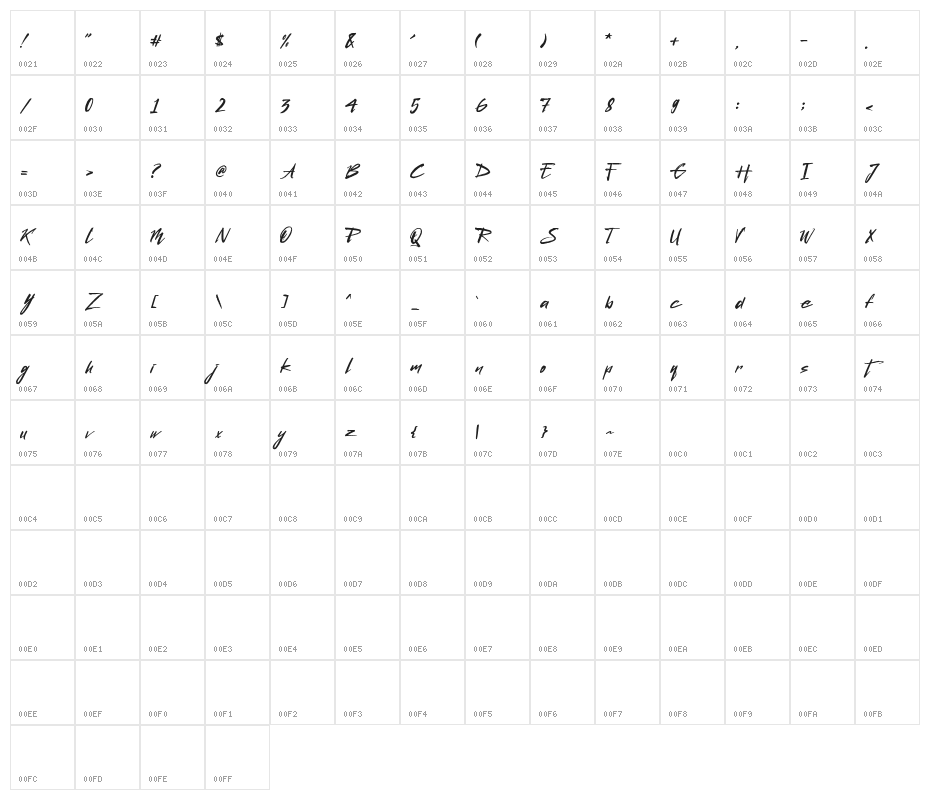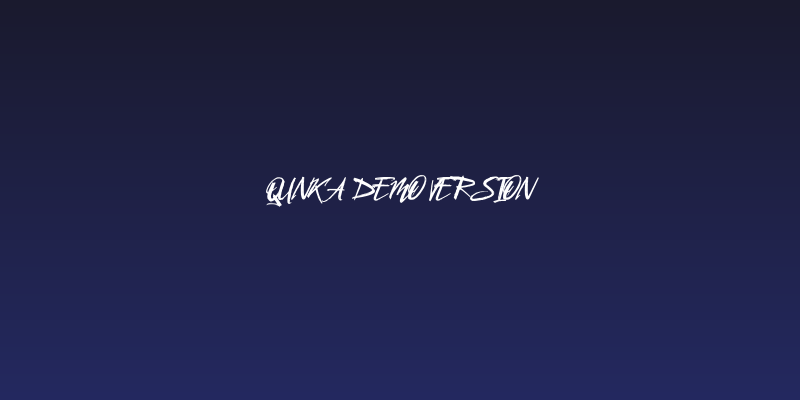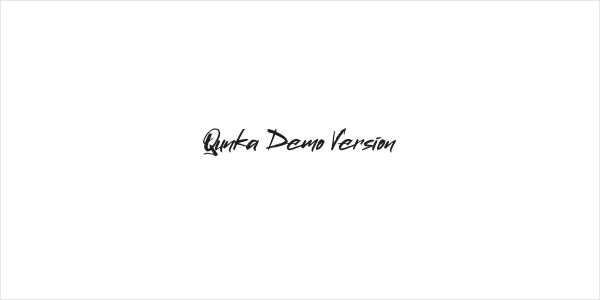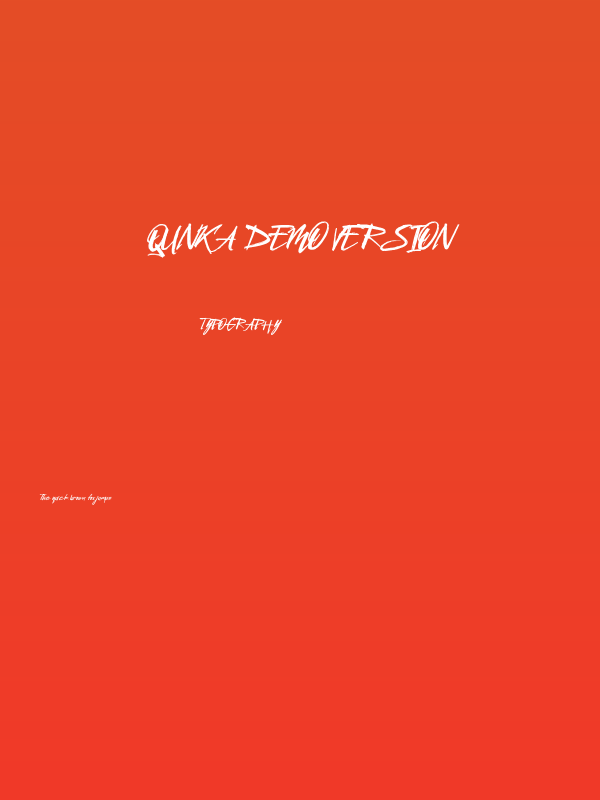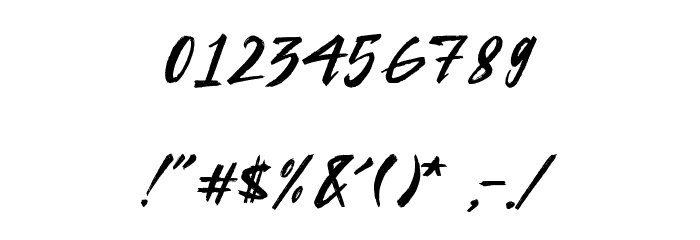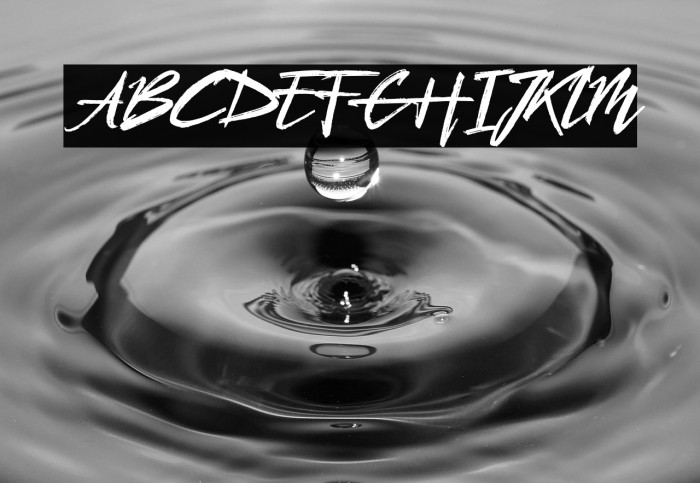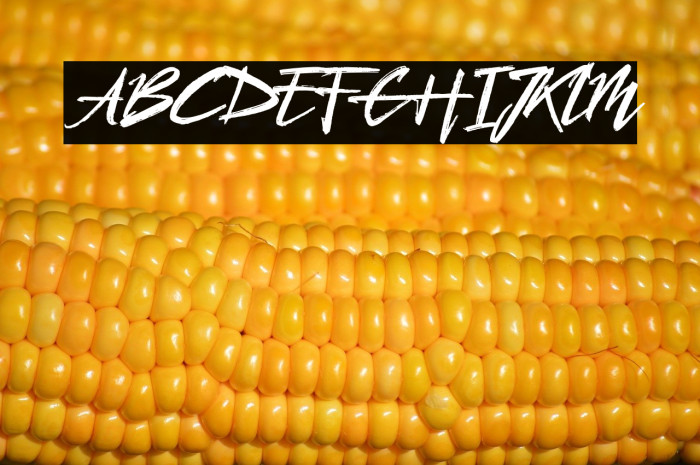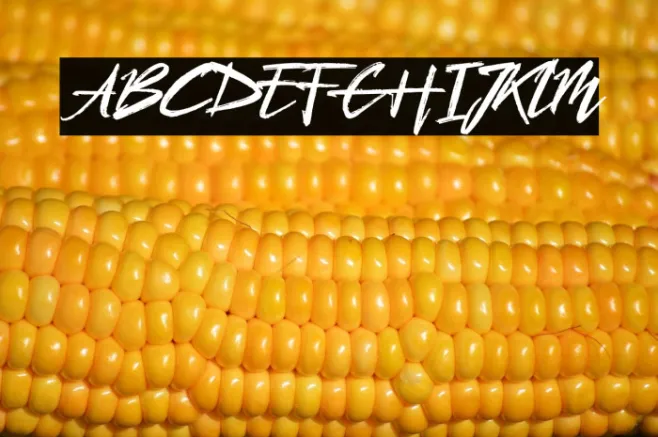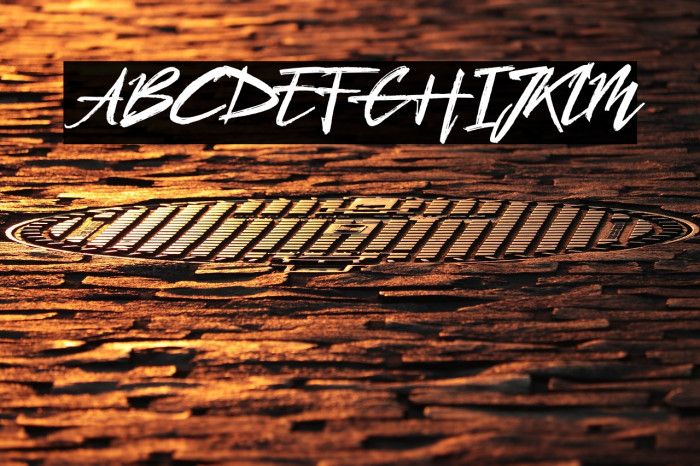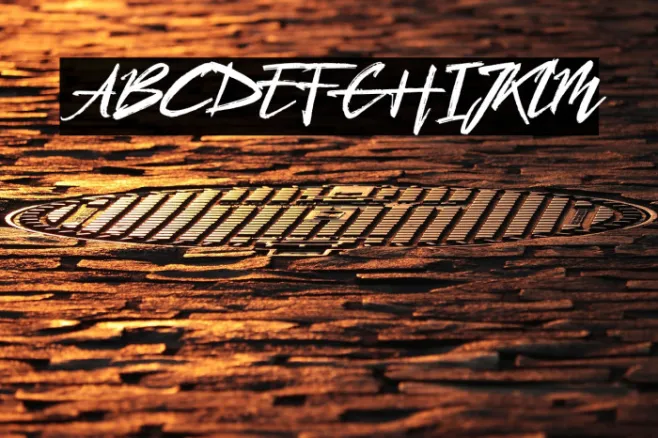
Qunka Demo Version Font
Qunka Demo Version Description
This font features a dynamic and energetic script style, characterized by its fluid and expressive strokes. The letters are connected with a natural flow, giving it a handwritten appearance that is both artistic and personal. The uppercase letters are bold and prominent, while the lowercase letters maintain a consistent style, enhancing readability. Numbers and special characters are designed to match the overall aesthetic, ensuring a cohesive look across all text. The font's unique style makes it suitable for creative projects that require a personal touch.
| Proposed Projects | Ideal for branding, invitations, greeting cards, and artistic projects that require a personal and creative touch. |